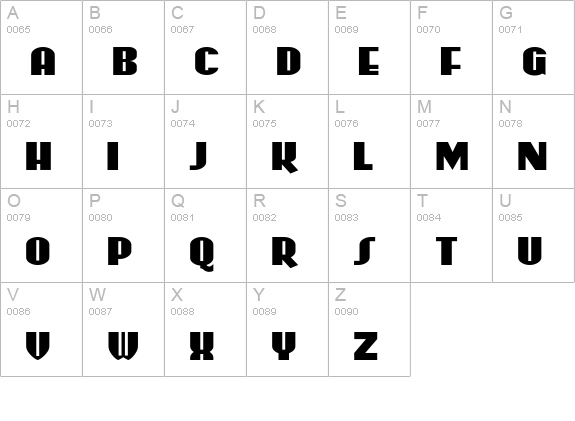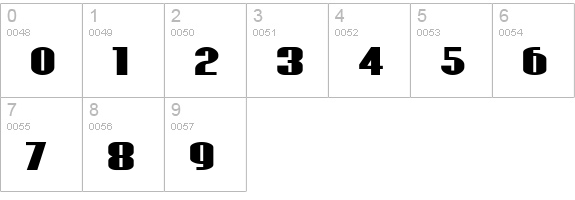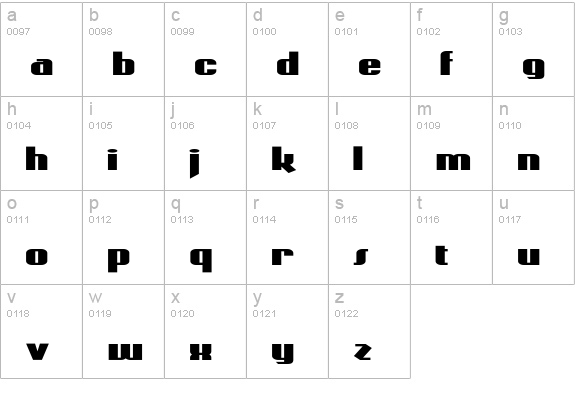
CoasterPoster Font Details
CoasterPoster font is a whimsical and playful typeface that exudes a retro charm reminiscent of vintage amusement park posters. With its bold and eye-catching letters, this font is perfect for adding a touch of fun and nostalgia to any design project. Whether you're creating posters, invitations, or branding materials, CoasterPoster font will surely make your text stand out. Best of all, CoasterPoster font is available for free download at FontsMarket.com. So go ahead and give your designs a unique and vibrant look with this delightful typeface. Let your creativity run wild with CoasterPoster font and watch your projects come to life with its distinctive style.